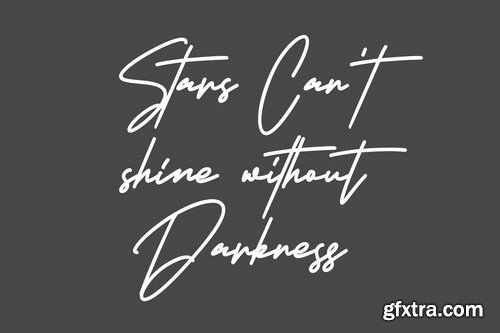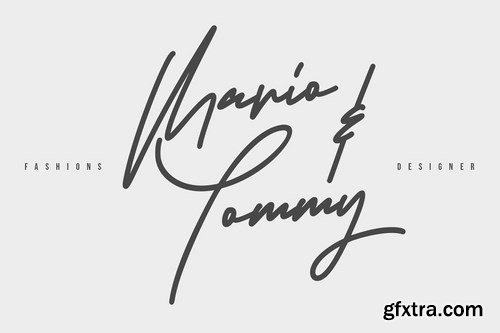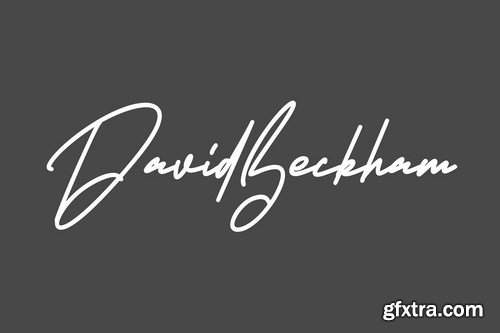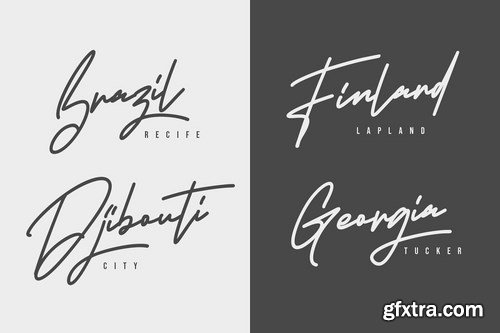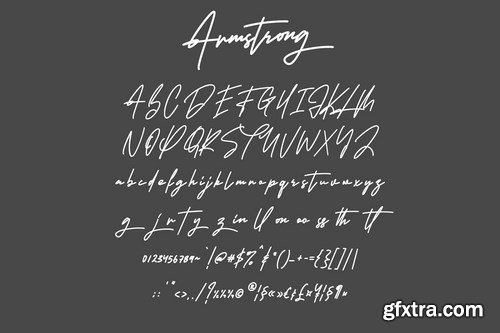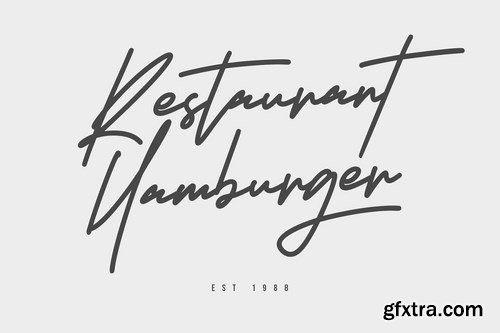
Give your designs an authentic handcrafted feel. "Armstrong Signature Font" is perfectly suited to signature, stationery, logo, typography quotes, magazine or book cover, website header, clothing, branding, packaging design and more.